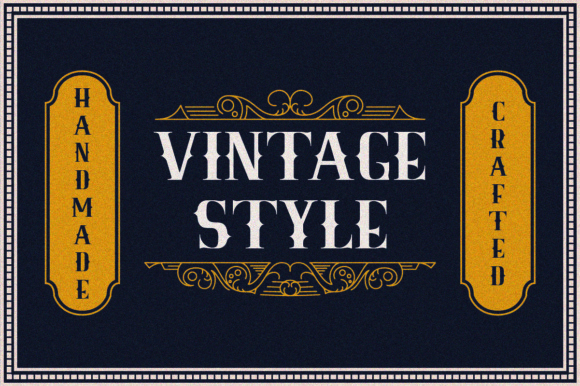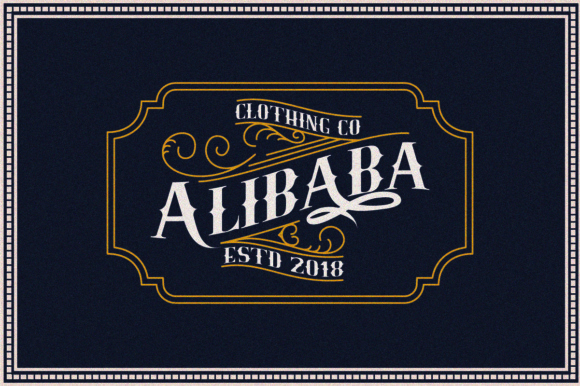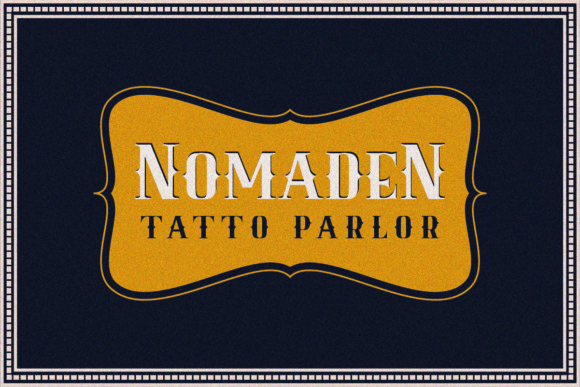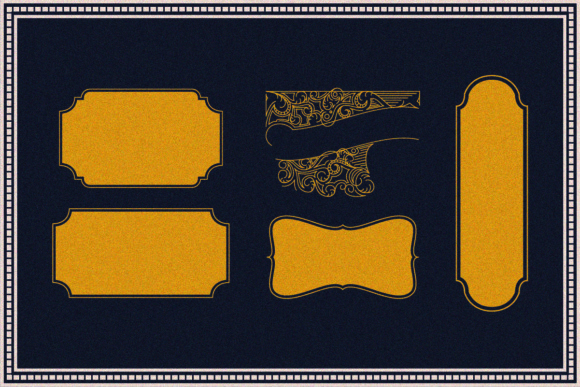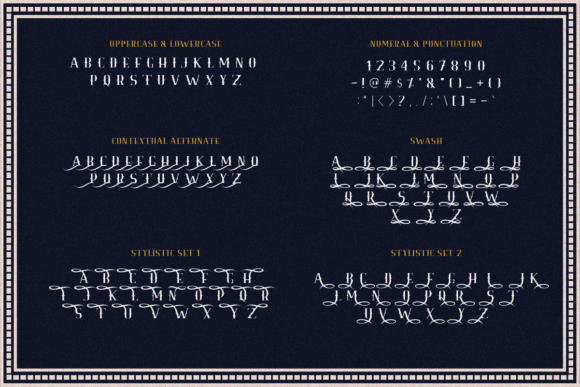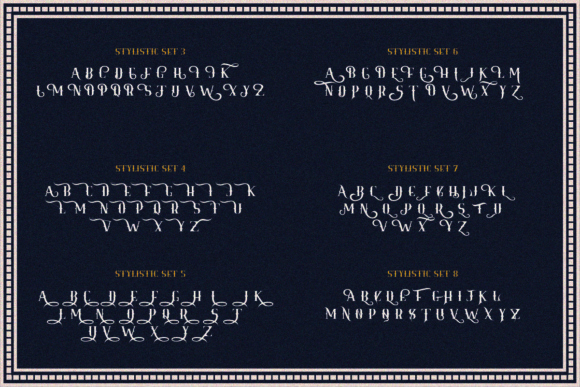
Introduction to Royale Kingdom Font
Royale Kingdom is a jaw-droppingly gorgeous display font, perfect for vintage themes and more.
This download comes with added ornaments, so you can create stunning designs for all your projects .
Key Features of Royale Kingdom Font